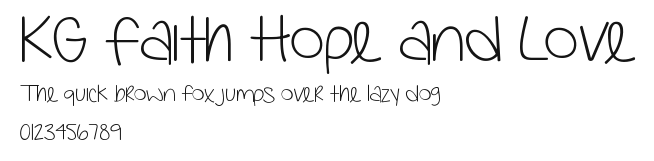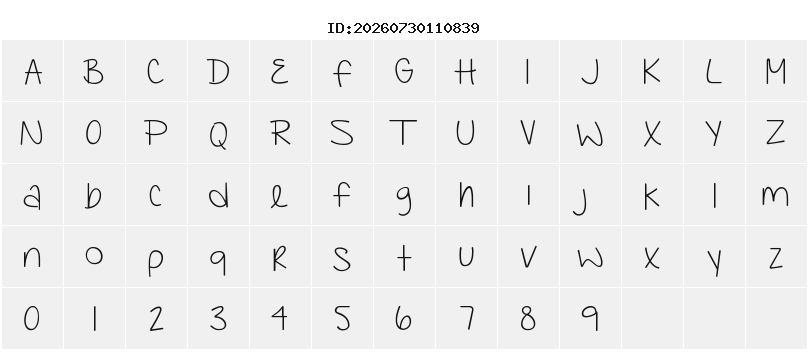
• Font Name: KG Faith Hope and Love
• Full Font Name: KG Faith Hope and Love
• Designer: Kimberly Geswein
• Manufacturer: Kimberly Geswein
About KG Faith Hope and Love.ttf
KG Faith Hope and Love.ttf is a modern, elegant sans-serif font designed for ultimate readability and visual harmony. Perfect for branding, headlines, web design, and print materials.